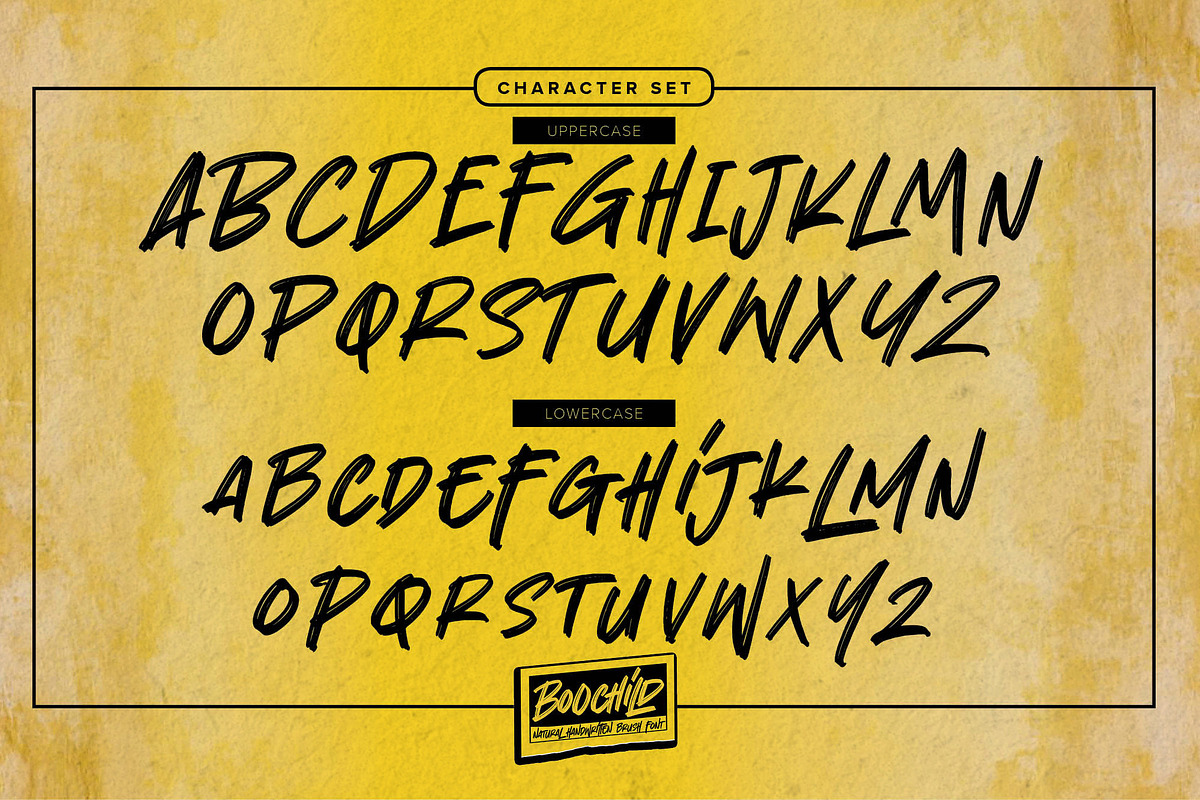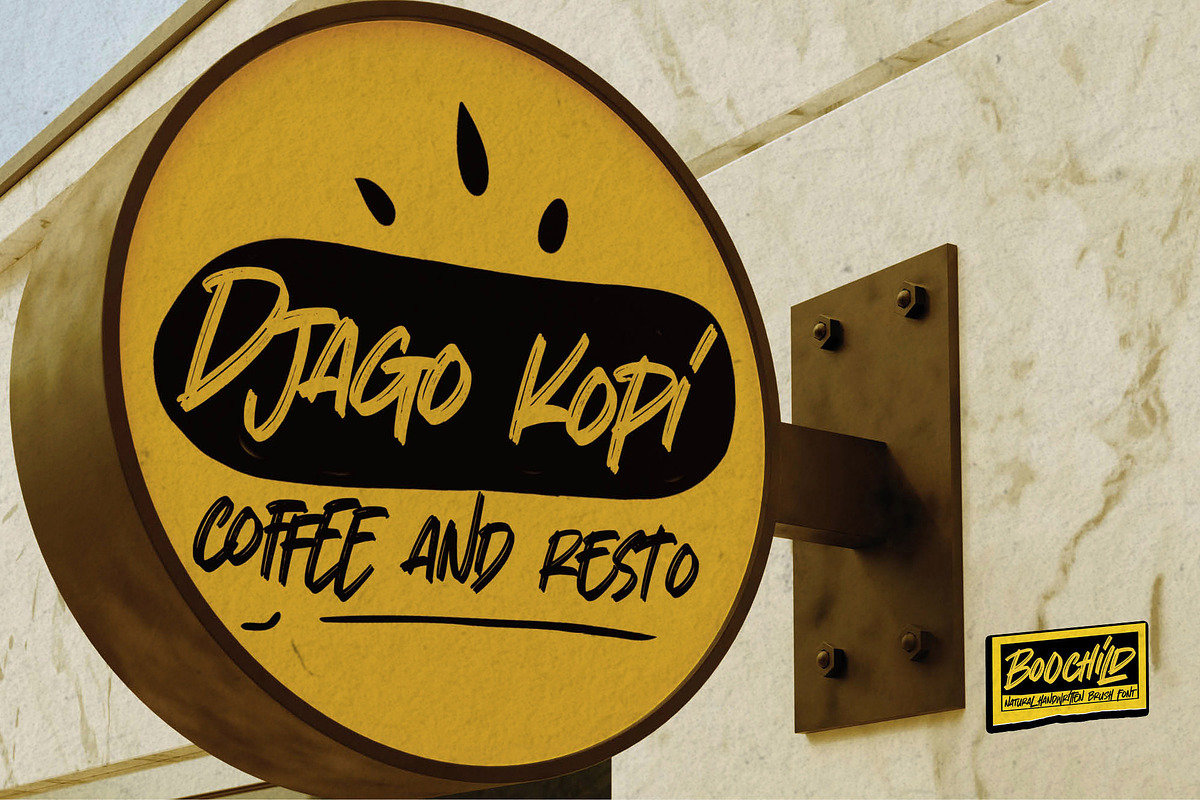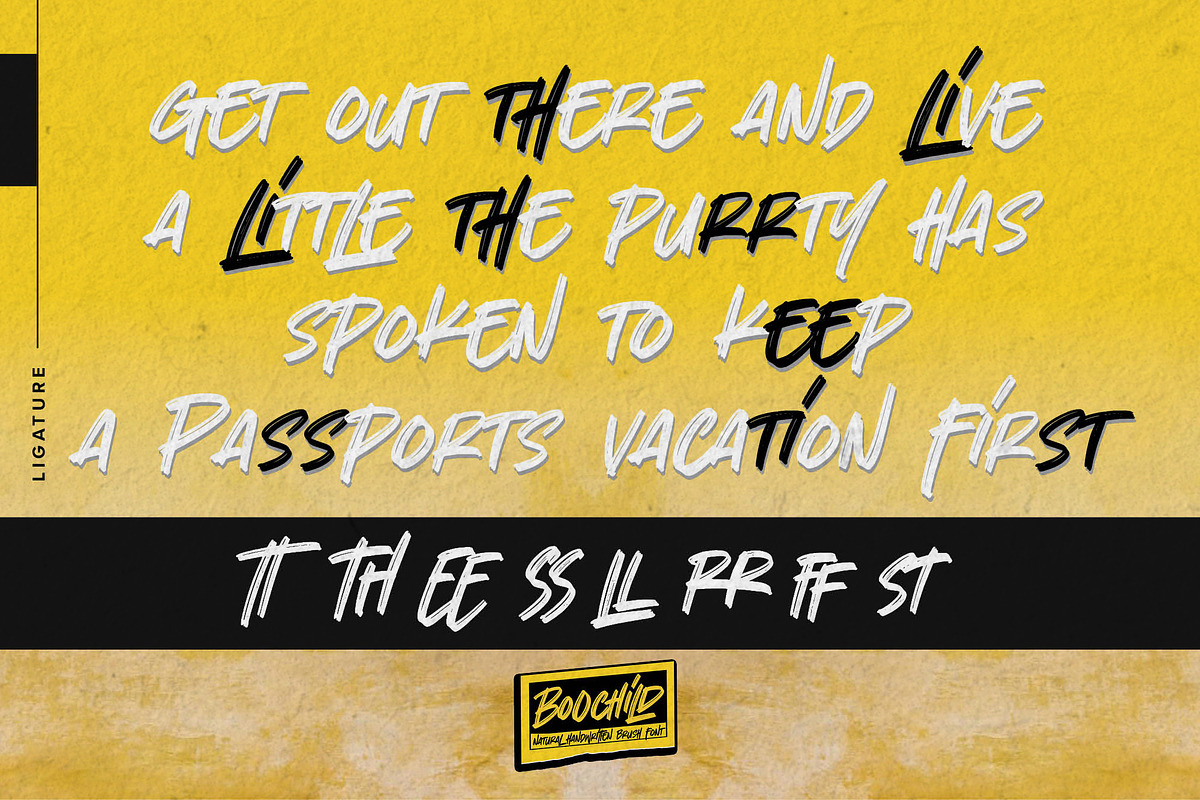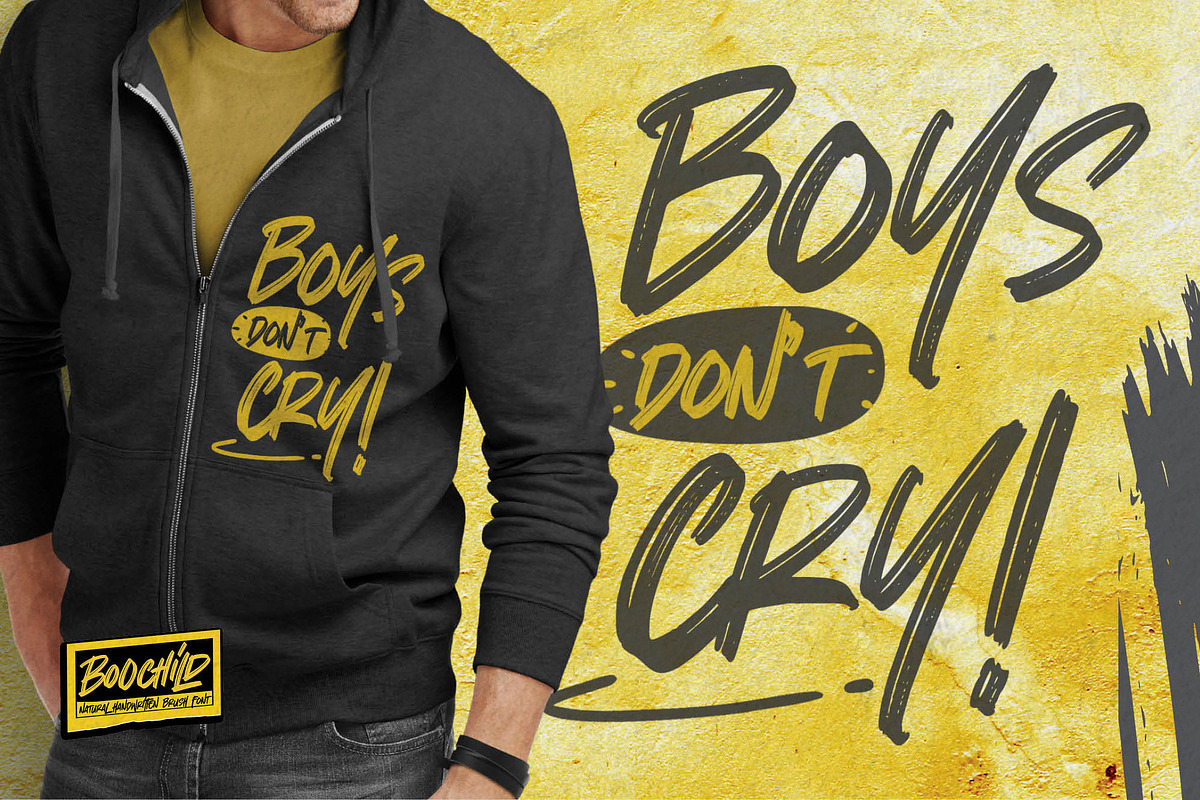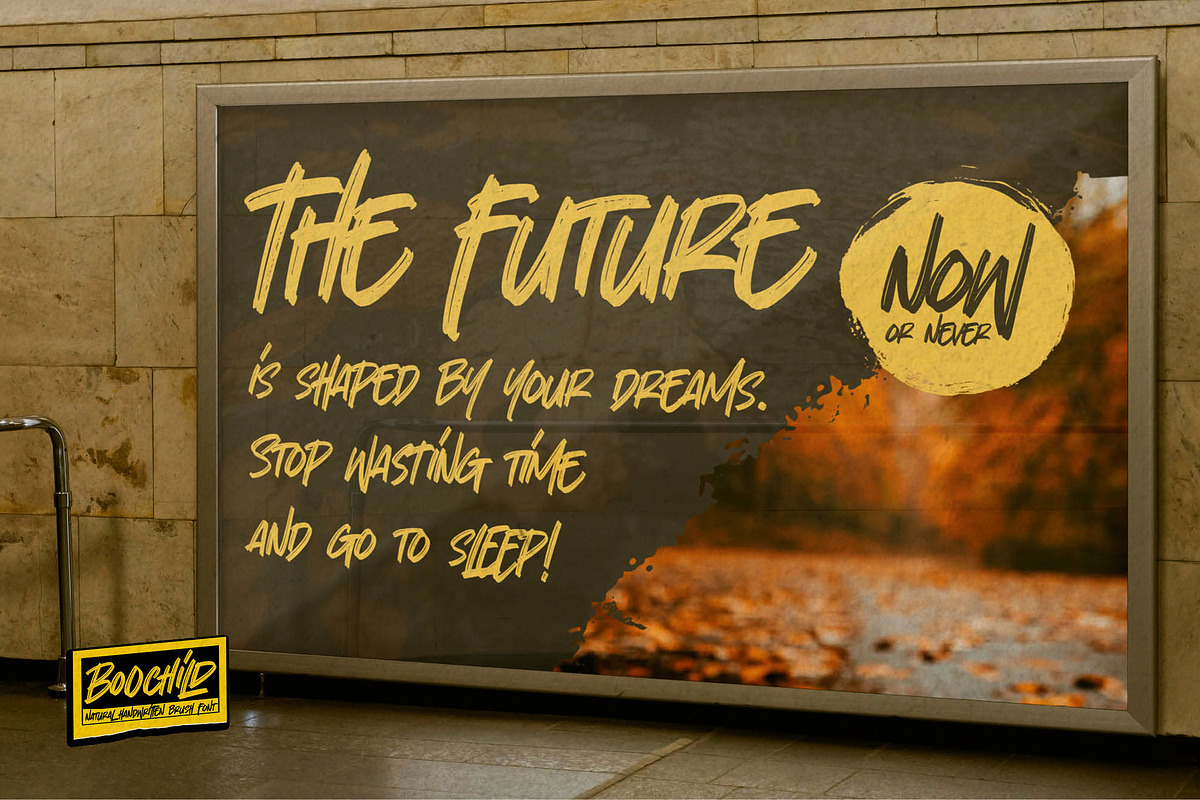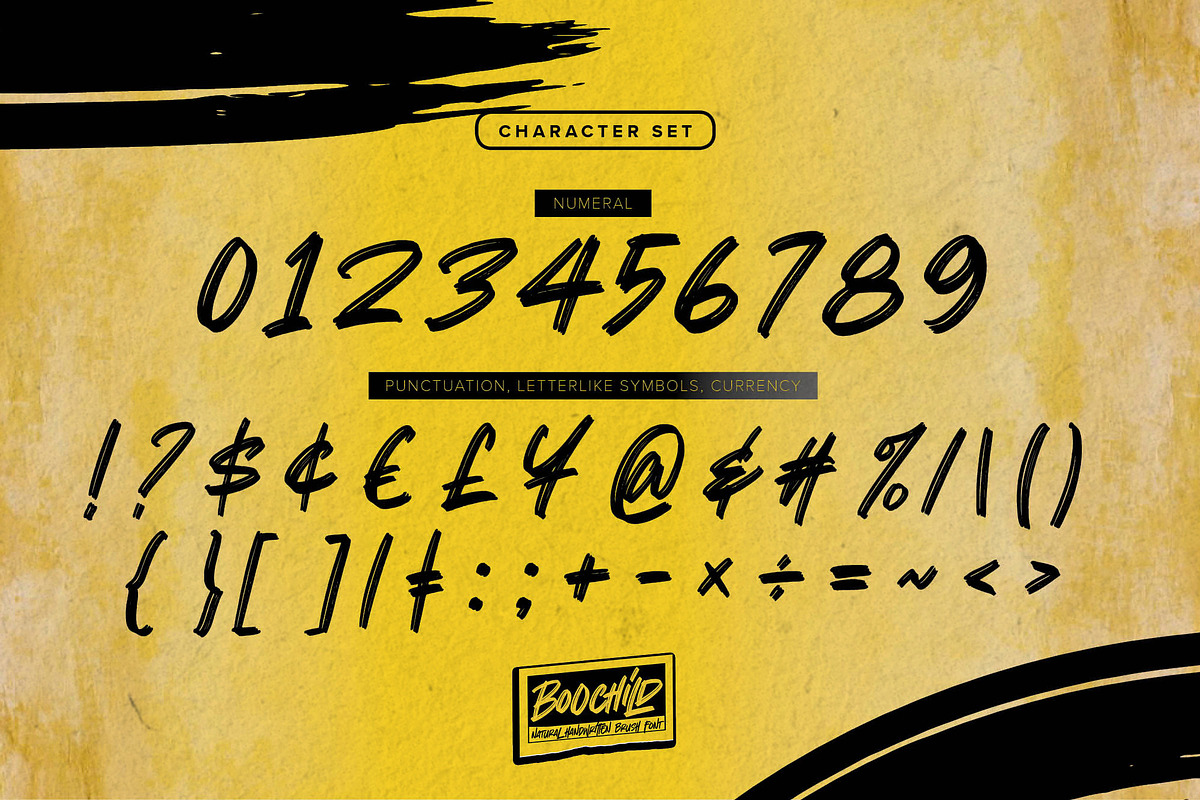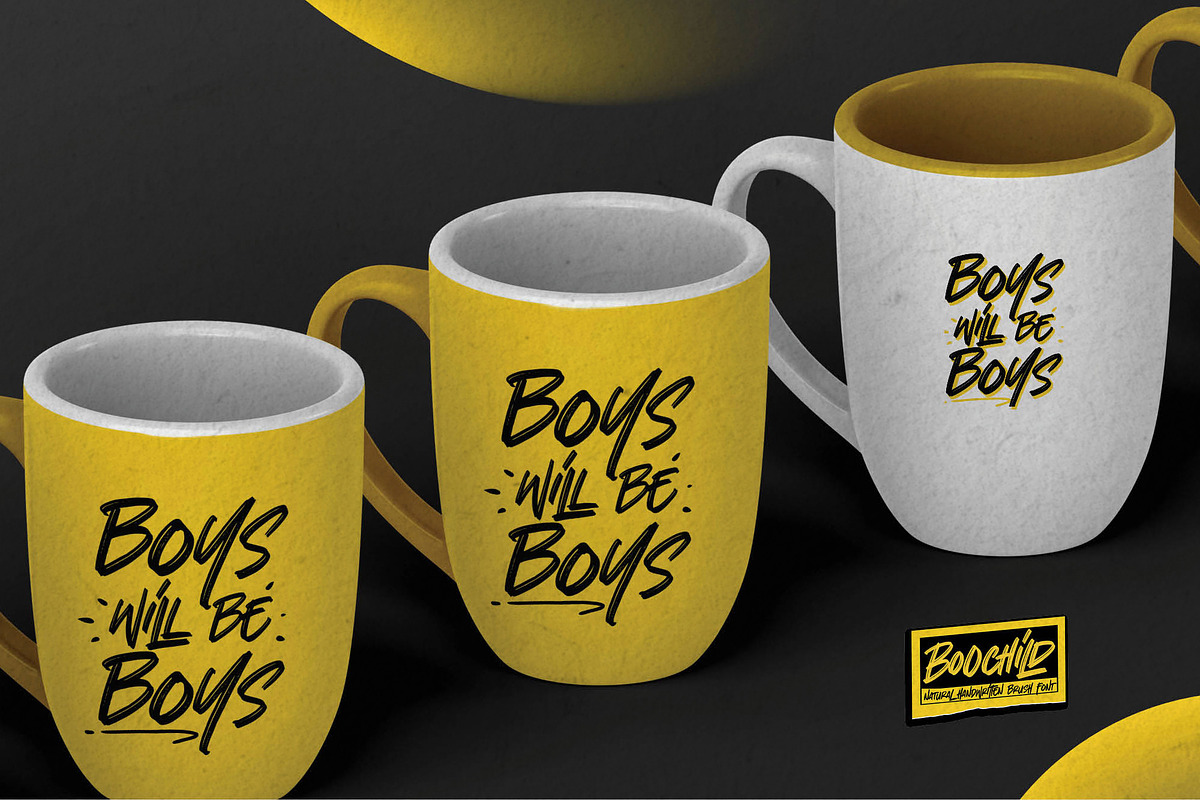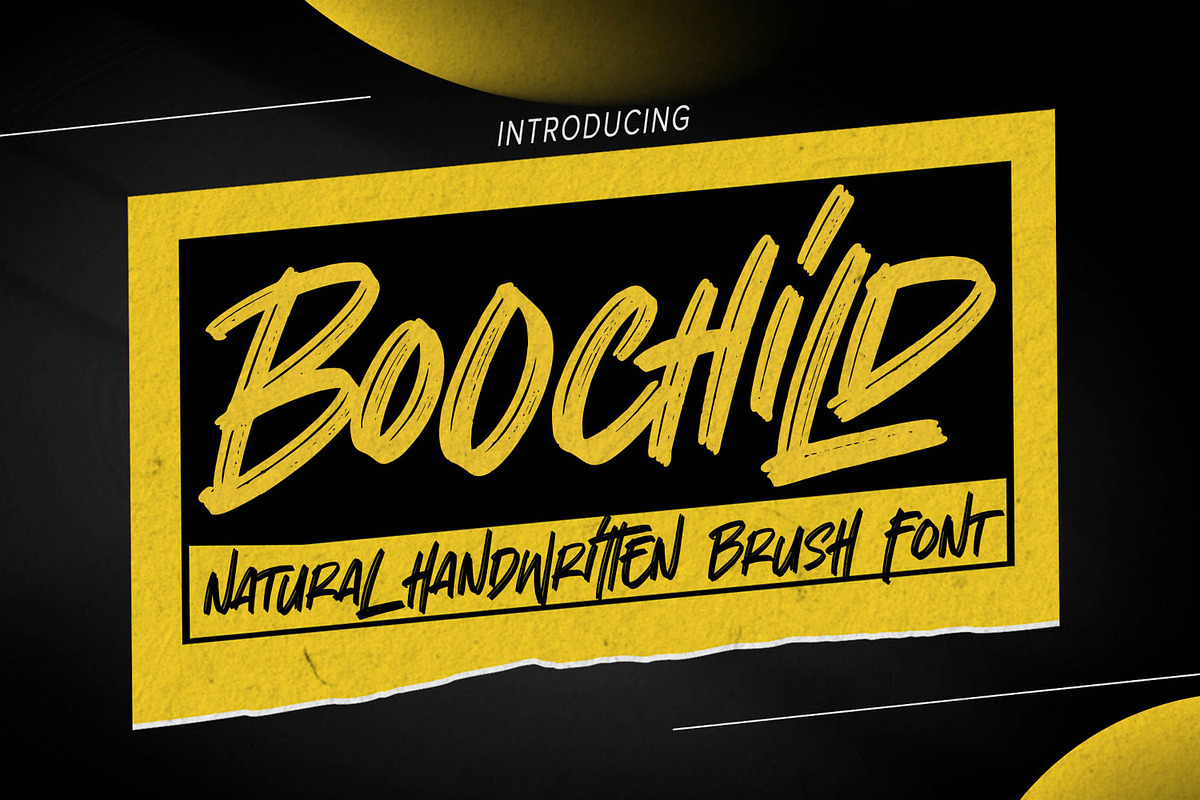
Boochild - Natural Handwritten Brush
Boochild - Natural Handwritten Brush Font with a natural style and dramatic movement. Crafted manually with love and passion, This font is great for your next creative project such as logos, printed quotes, invitations, cards, product packaging, headers, Logotype, Letterhead, Poster, Label, and etc.